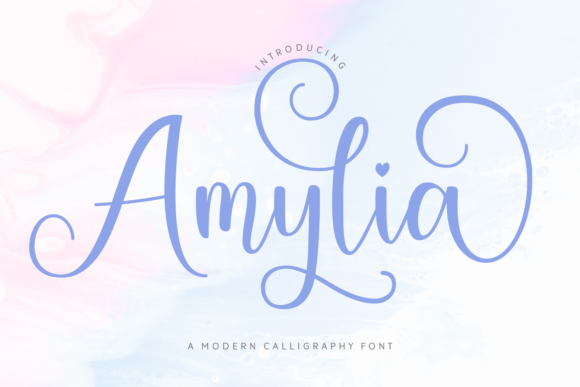
In a world bursting with visual cacophony, where every brand clamors for your attention, your designs need a captivating voice to rise above the noise. Enter Amylia Font, a symphony of elegance and romance, crafted by the maestros at Creative Fabrica Fonts.
Step into a realm of timeless beauty, where letters dance with grace and sophistication. Amylia's enchanting calligraphy weaves a spell, drawing eyes and hearts alike into its embrace. Its feminine and delicate touch breathes life into words, transforming them into exquisite works of art.
With Amylia as your muse, bring forth a symphony of creativity. Its versatile nature lends itself to a myriad of expressions, from the delicate strokes of wedding invitations to the bold statements of branding campaigns. Picture the allure of frames adorned with Amylia's enchanting script, the walls adorned with its poetic grace, and the allure of quotes that whisper wisdom in its dulcet tones.
Unleash your artistic vision and let Amylia guide your designs. Its elegant curves and playful swashes lend a touch of whimsy to book titles, adding a touch of enchantment to every page. Imagine the allure of jewelry stores adorned with Amylia's gilded letters, their names shimmering with an air of exclusivity. And envision fashion websites draped in Amylia's flowing lines, each garment telling a tale of elegance and style.
Amylia is more than just a font; it's an experience. It's a journey into the realm of the senses, where beauty and emotion intertwine. With every stroke, it evokes a symphony of feelings, stirring hearts and leaving an indelible mark on the minds of those who behold it.
So why settle for ordinary when you can embrace the extraordinary? Embrace Amylia Font today and unlock a world of captivating designs that whisper elegance, romance, and timeless beauty. Let your creativity soar on the wings of this enchanting font, and leave an unforgettable impression on all who encounter your artistic creations.